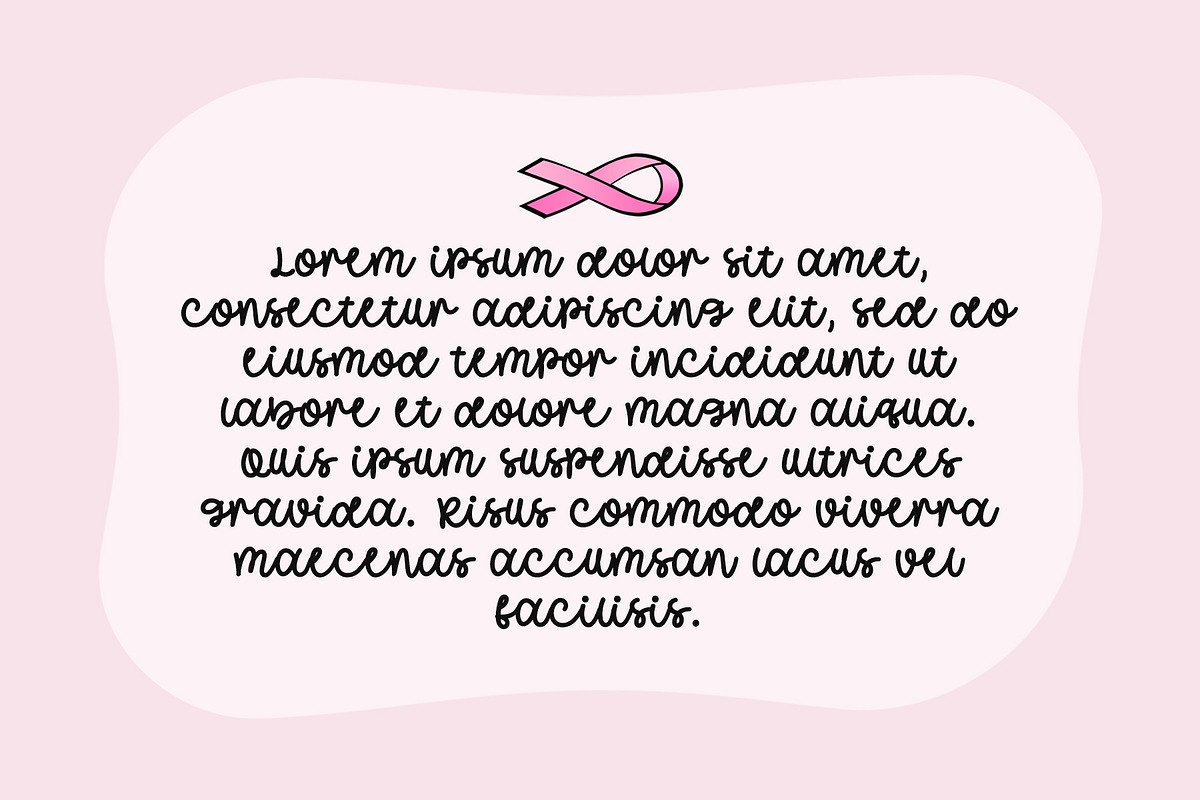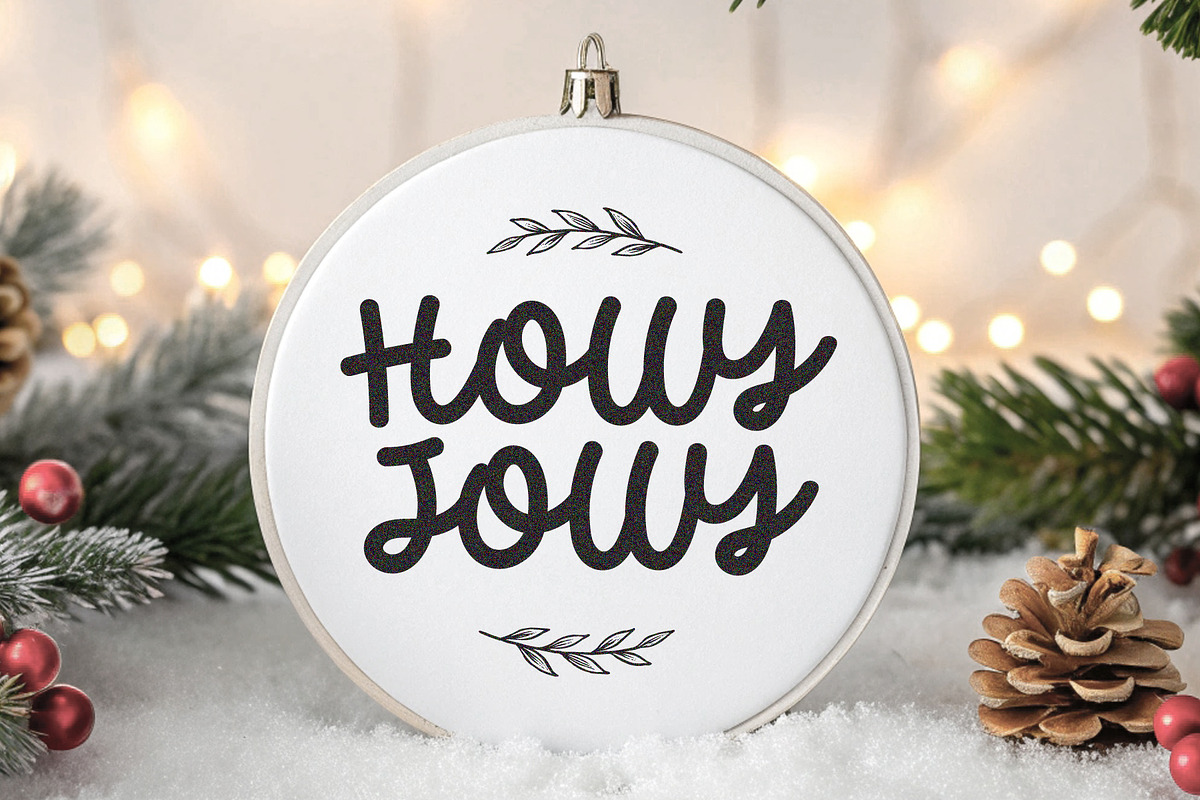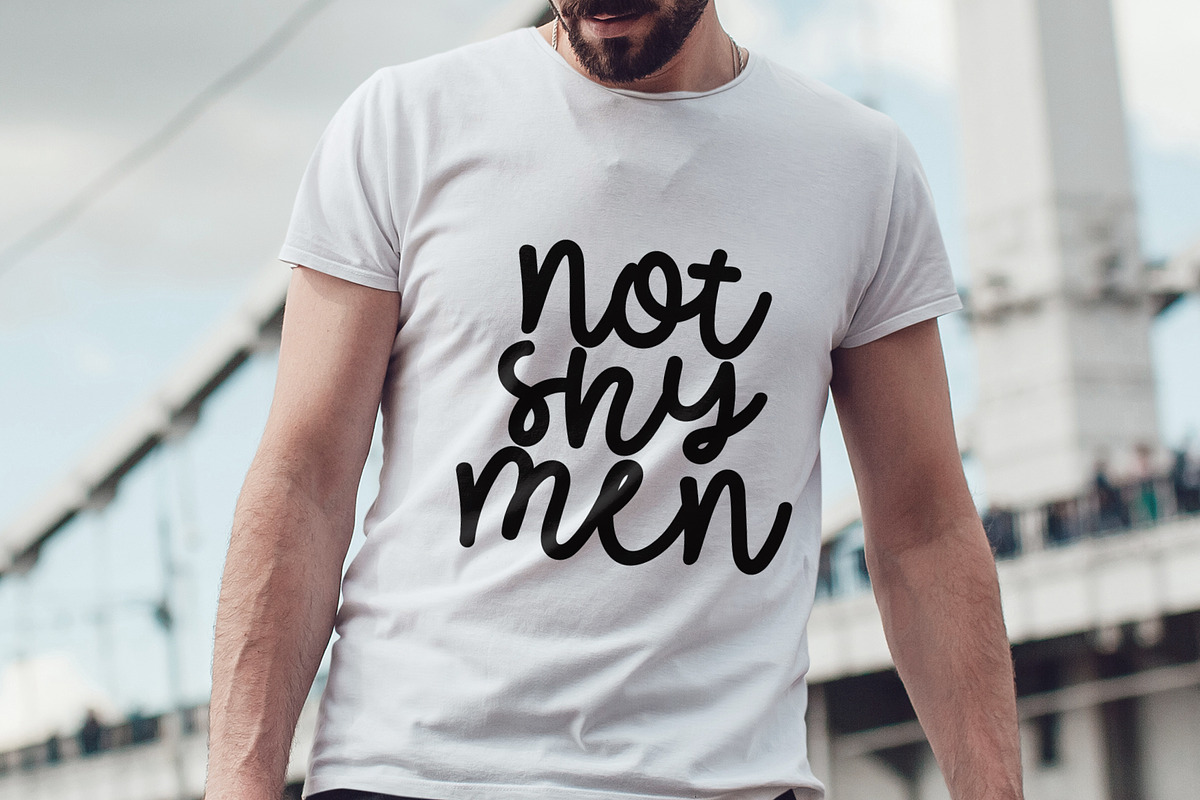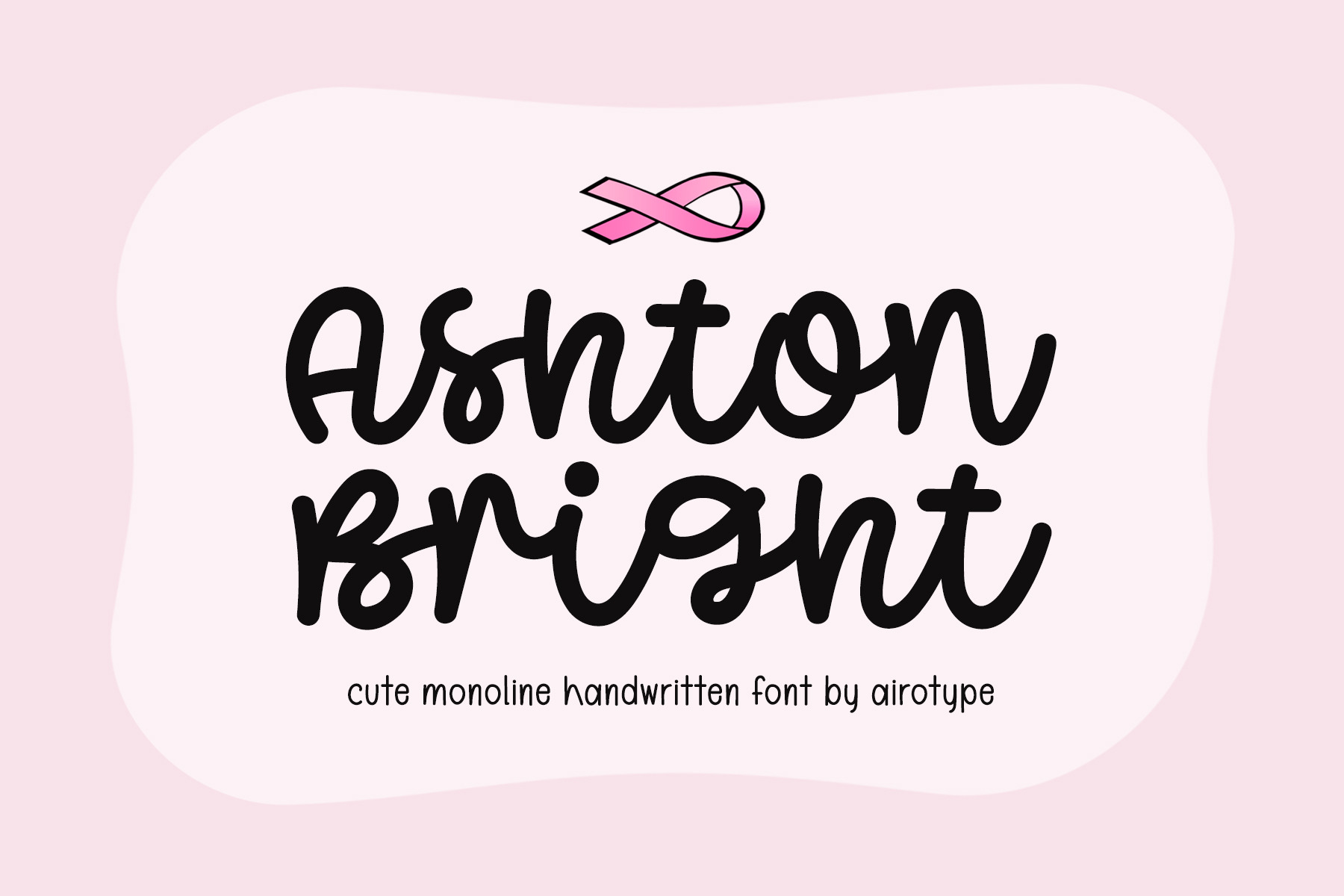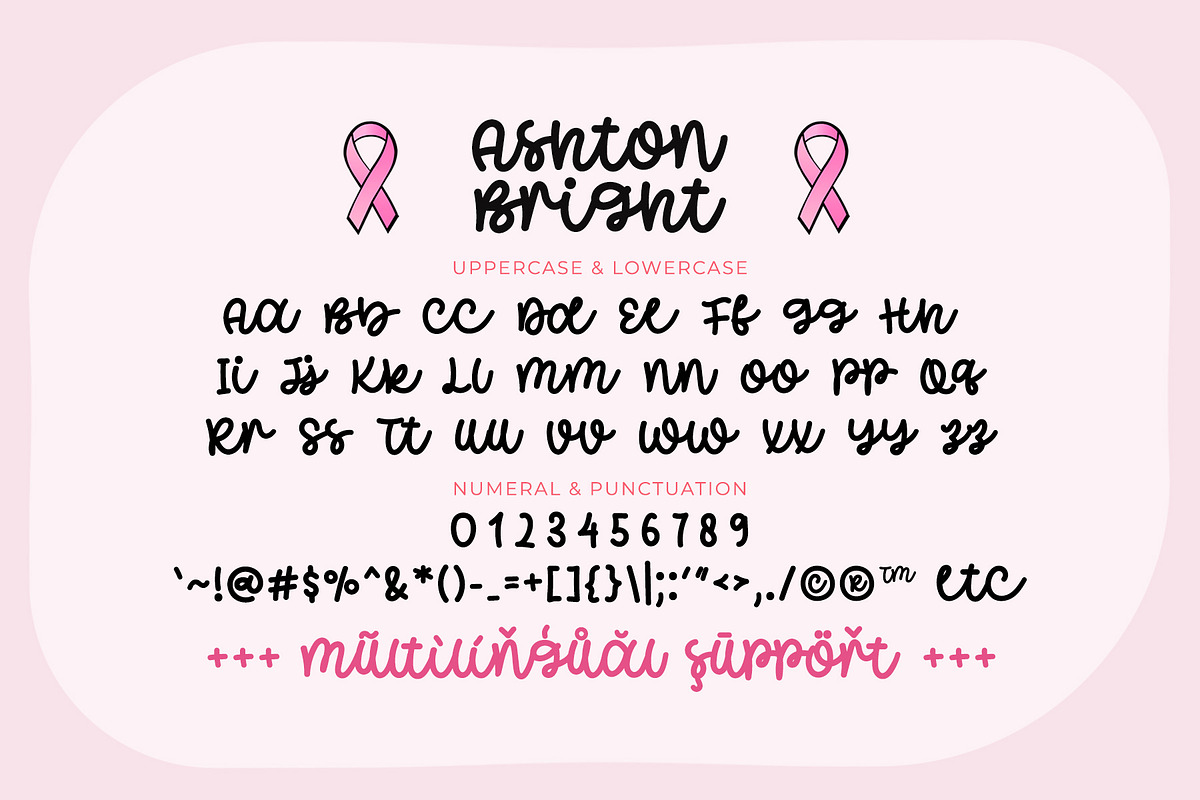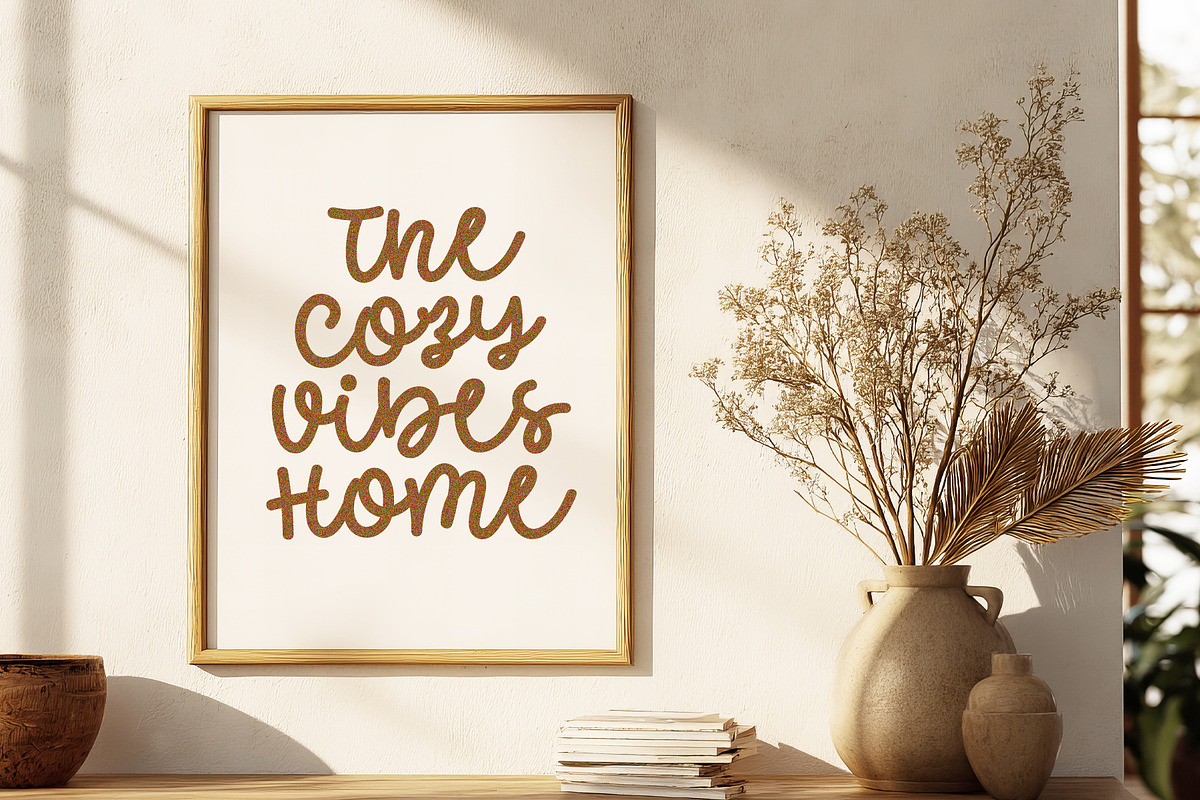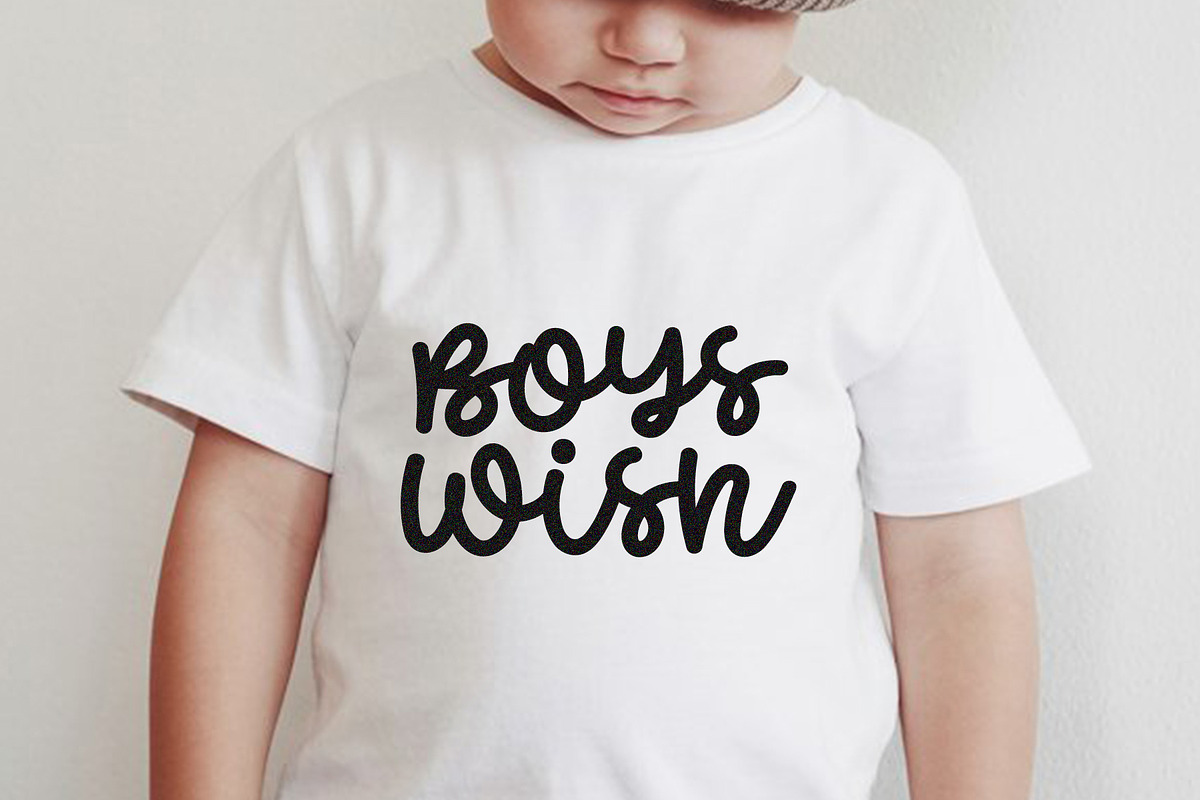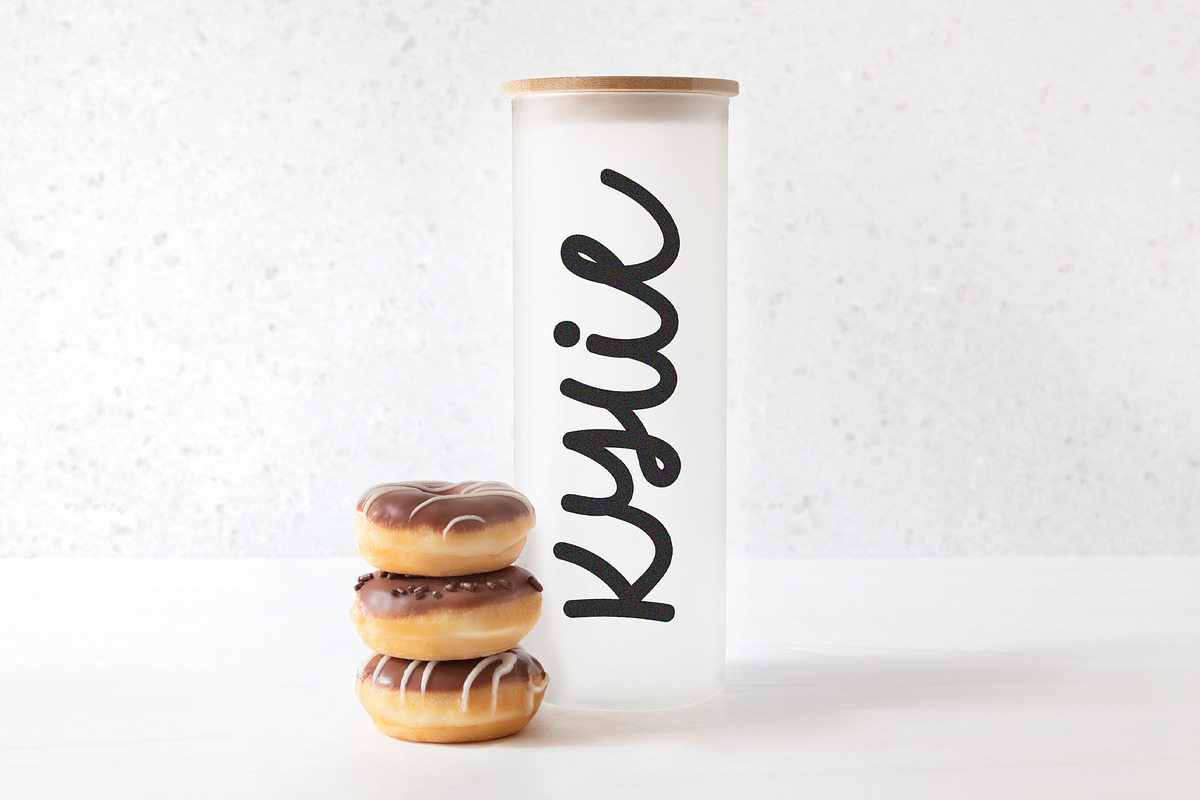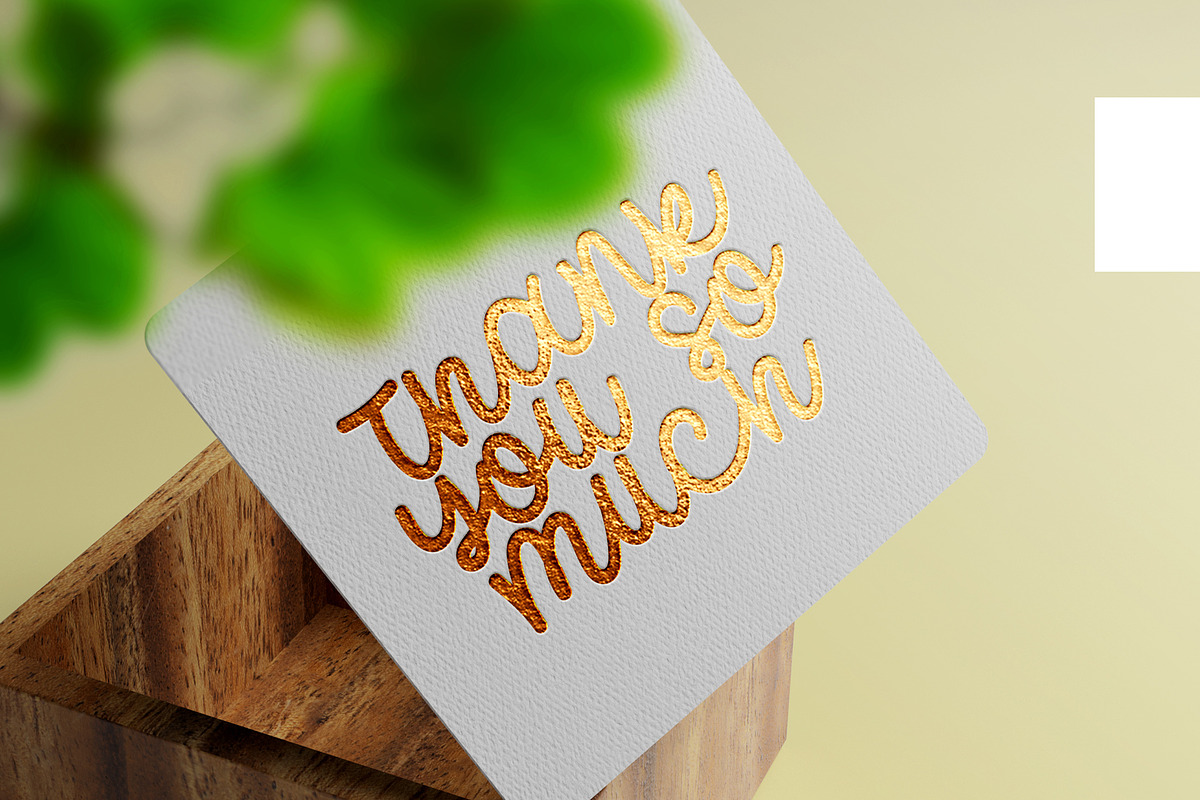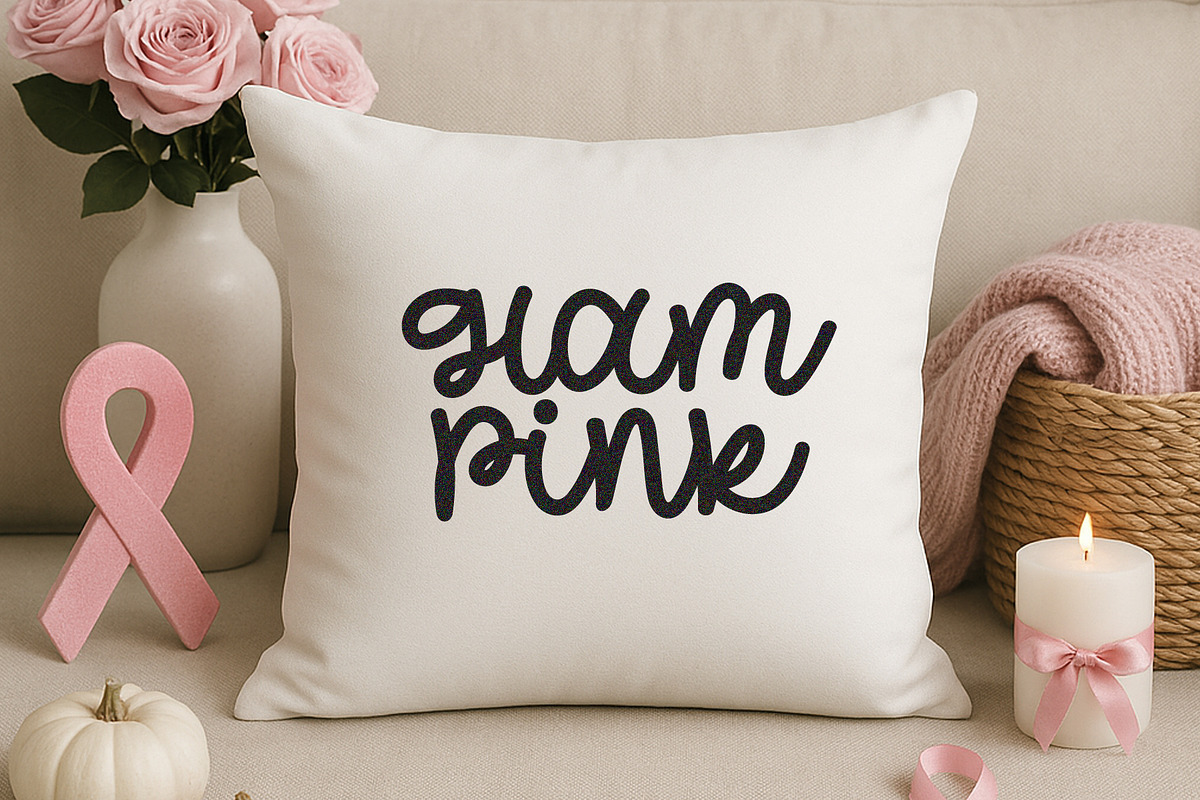
Ashton Bright Cute Cursive Font
Ashton Bright is simple and cute cursive monoline font. This font radiates charm and festive into the design.
Ashton Bright is suitable for design that needs simple handwritten touch, such as wedding design, invitation, signature, school-theme, logo, birthday, t-shirt design, crafting, sticker, sublimation, and many more.
Numeral and Punctuation
Most Multilingual Accent